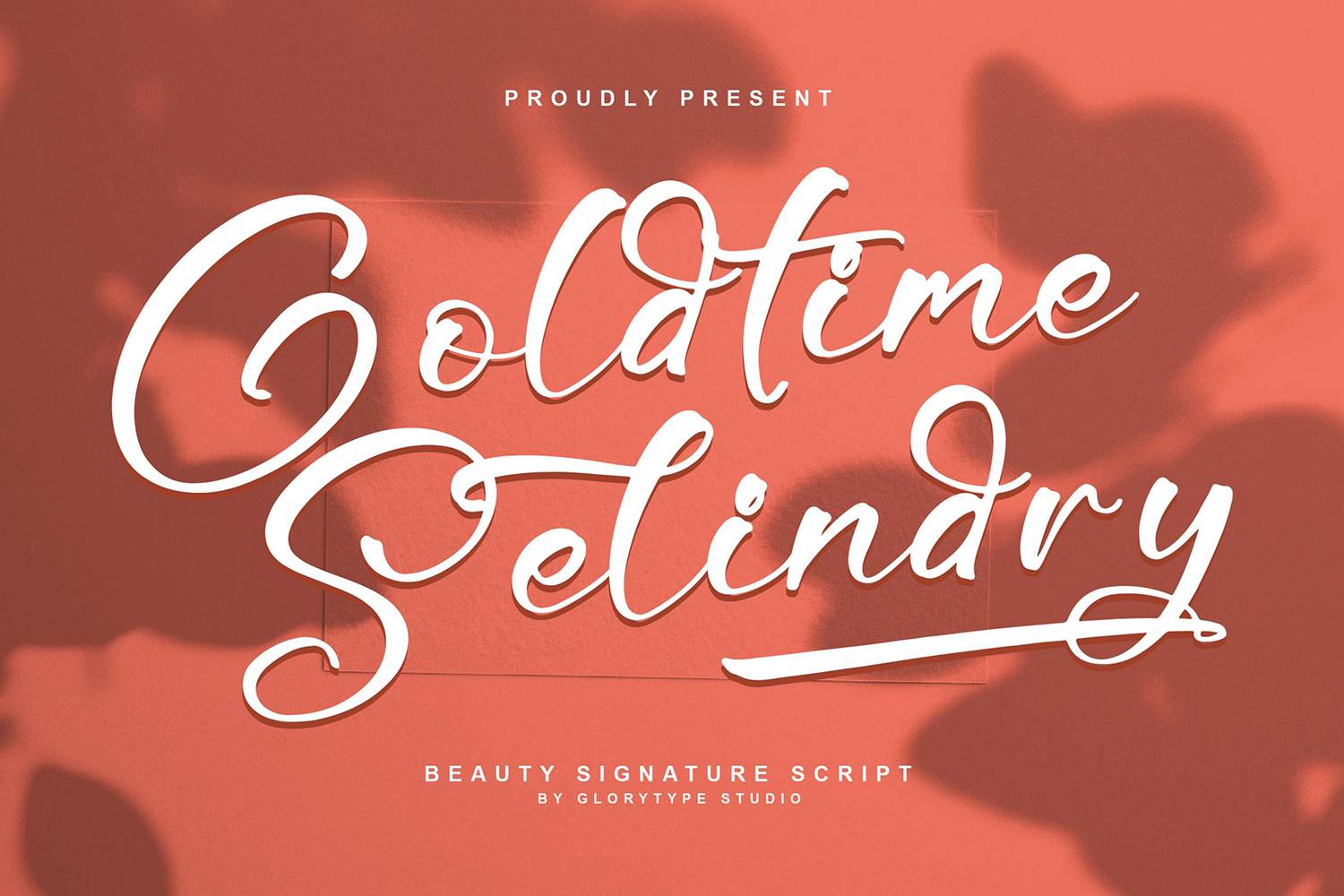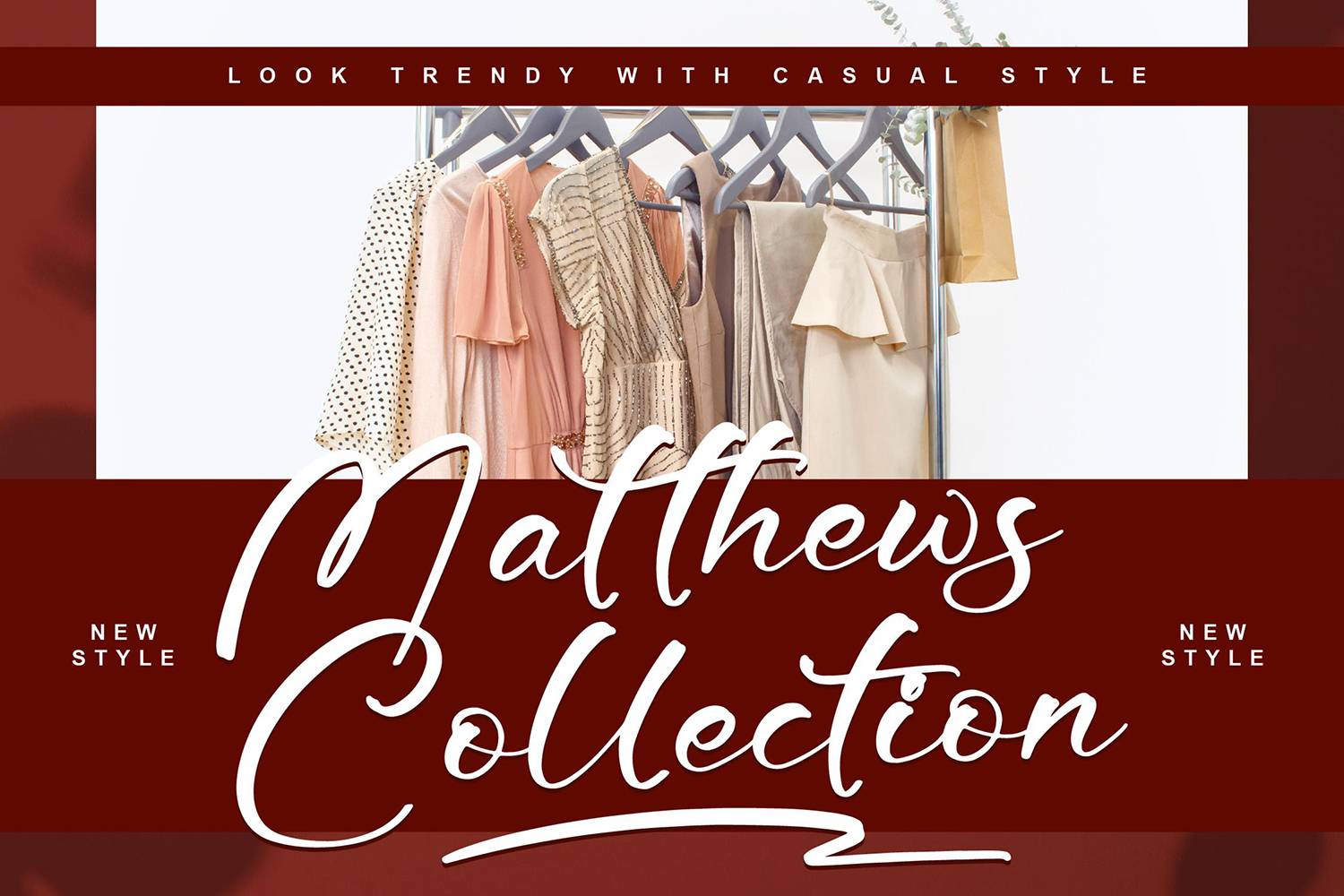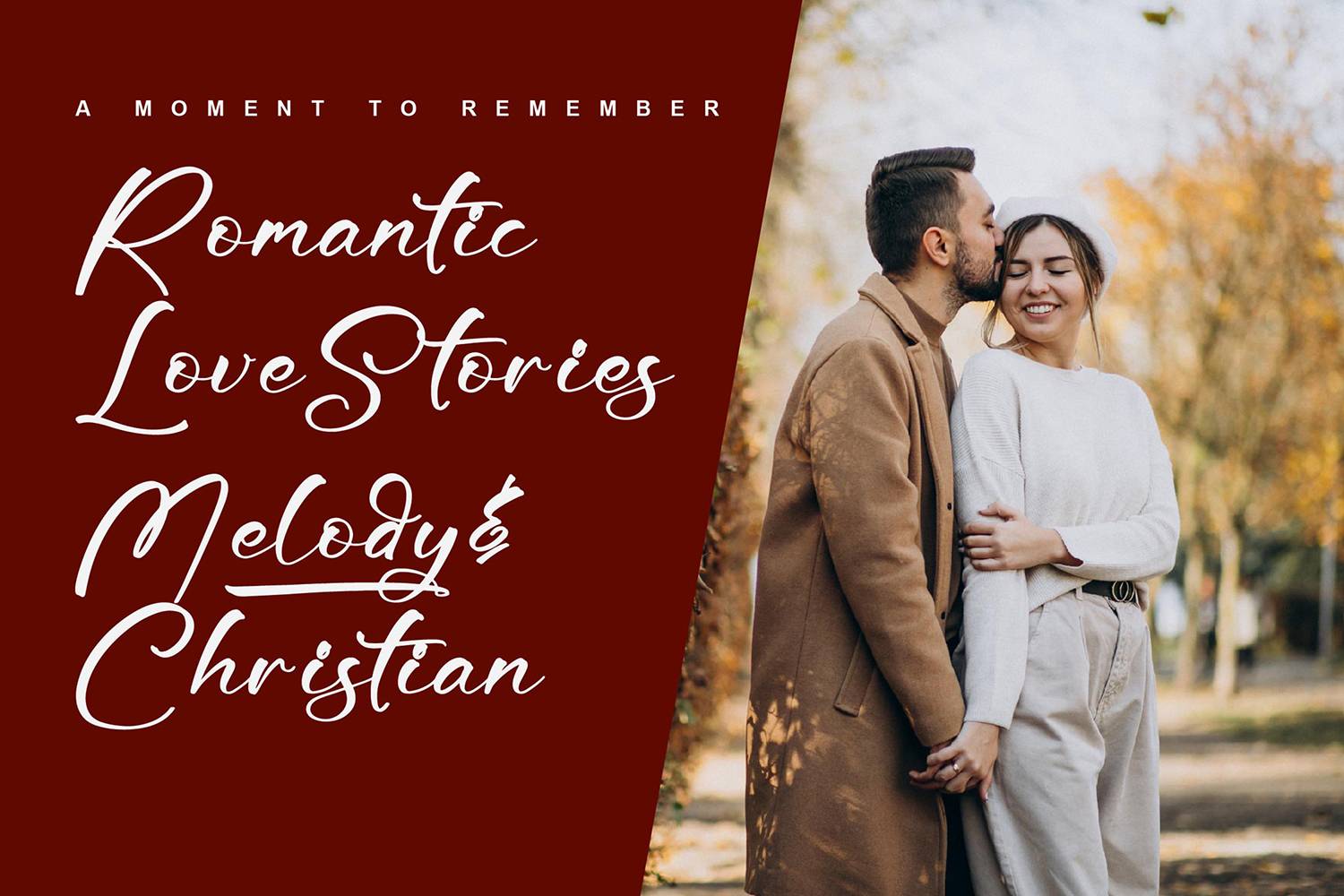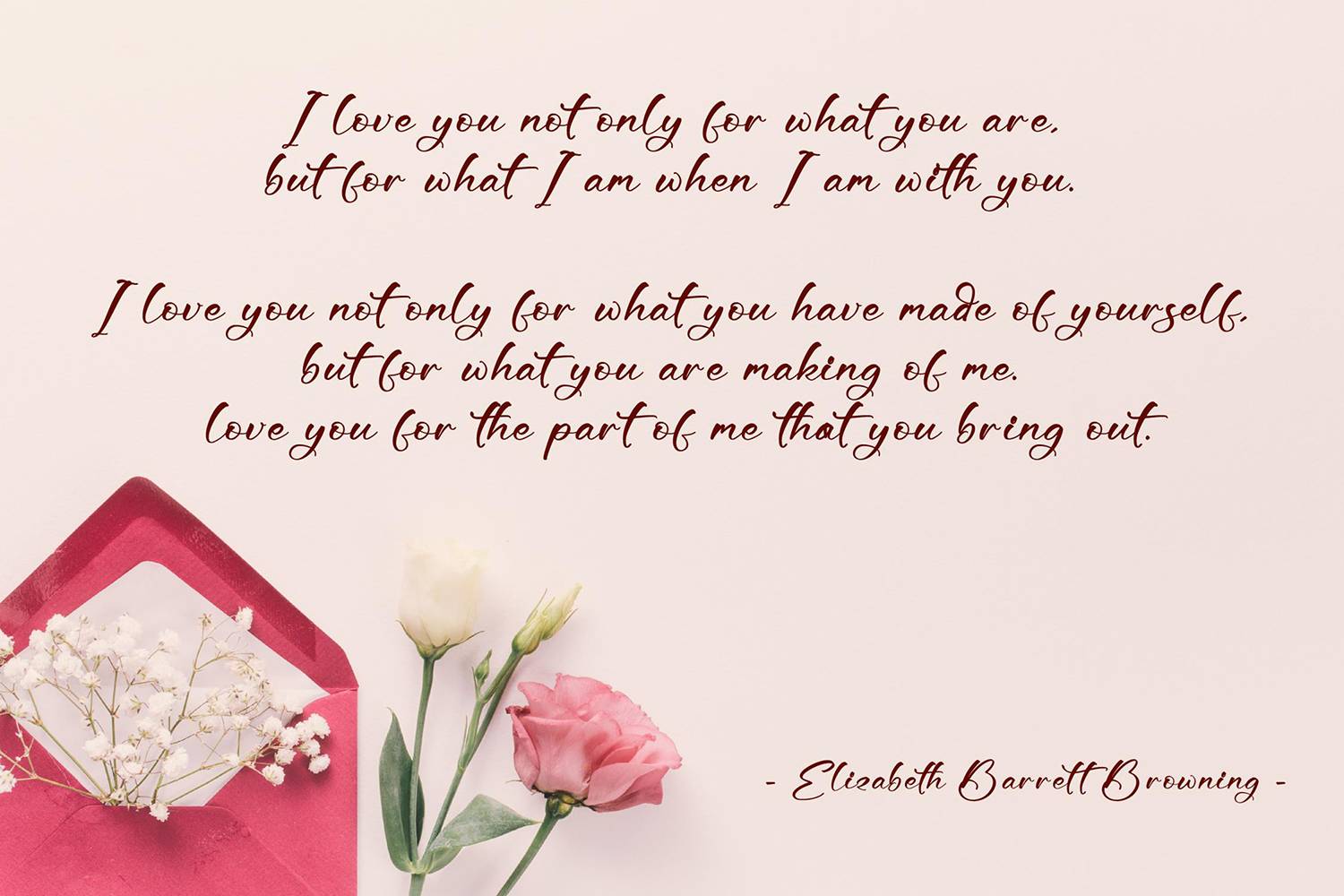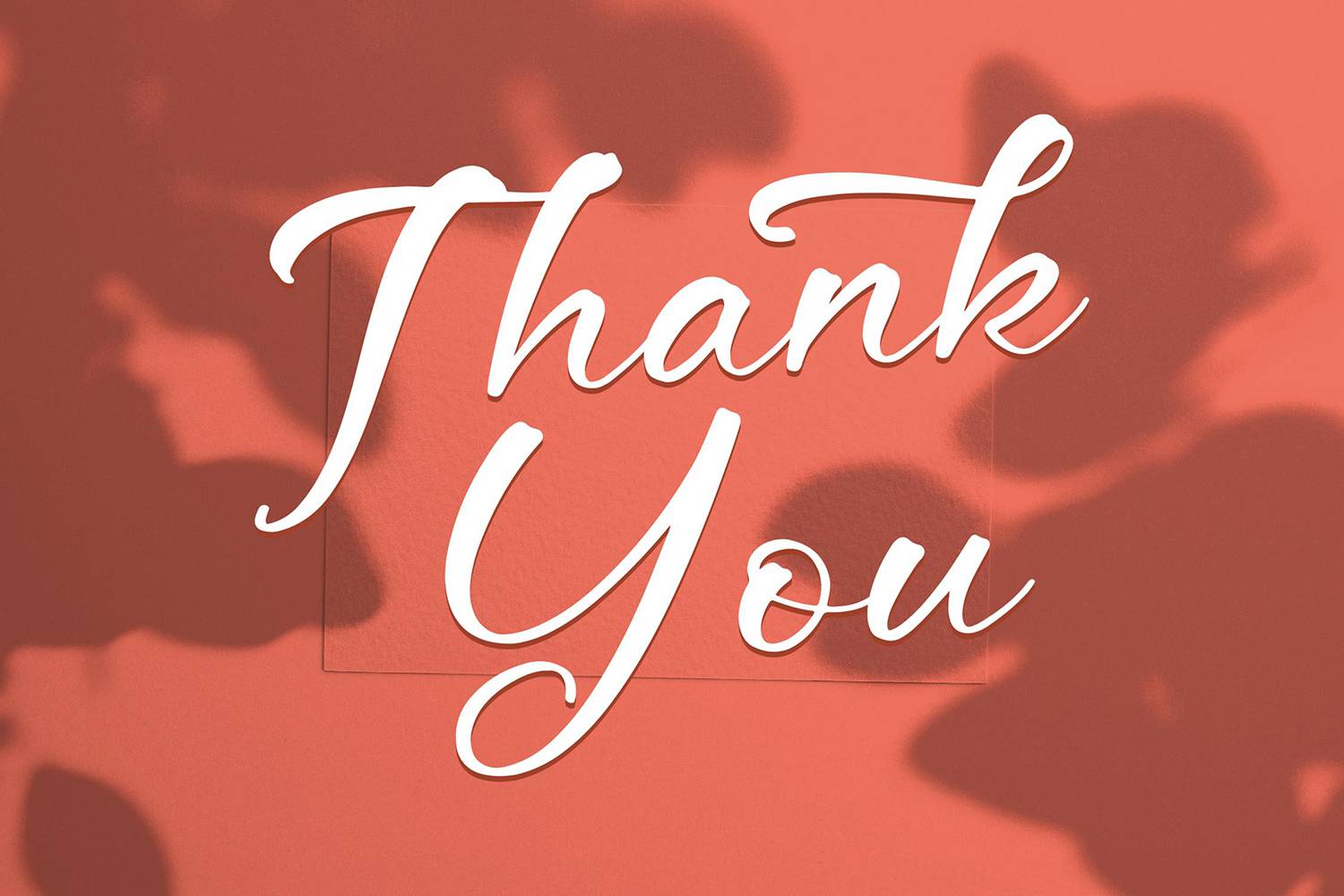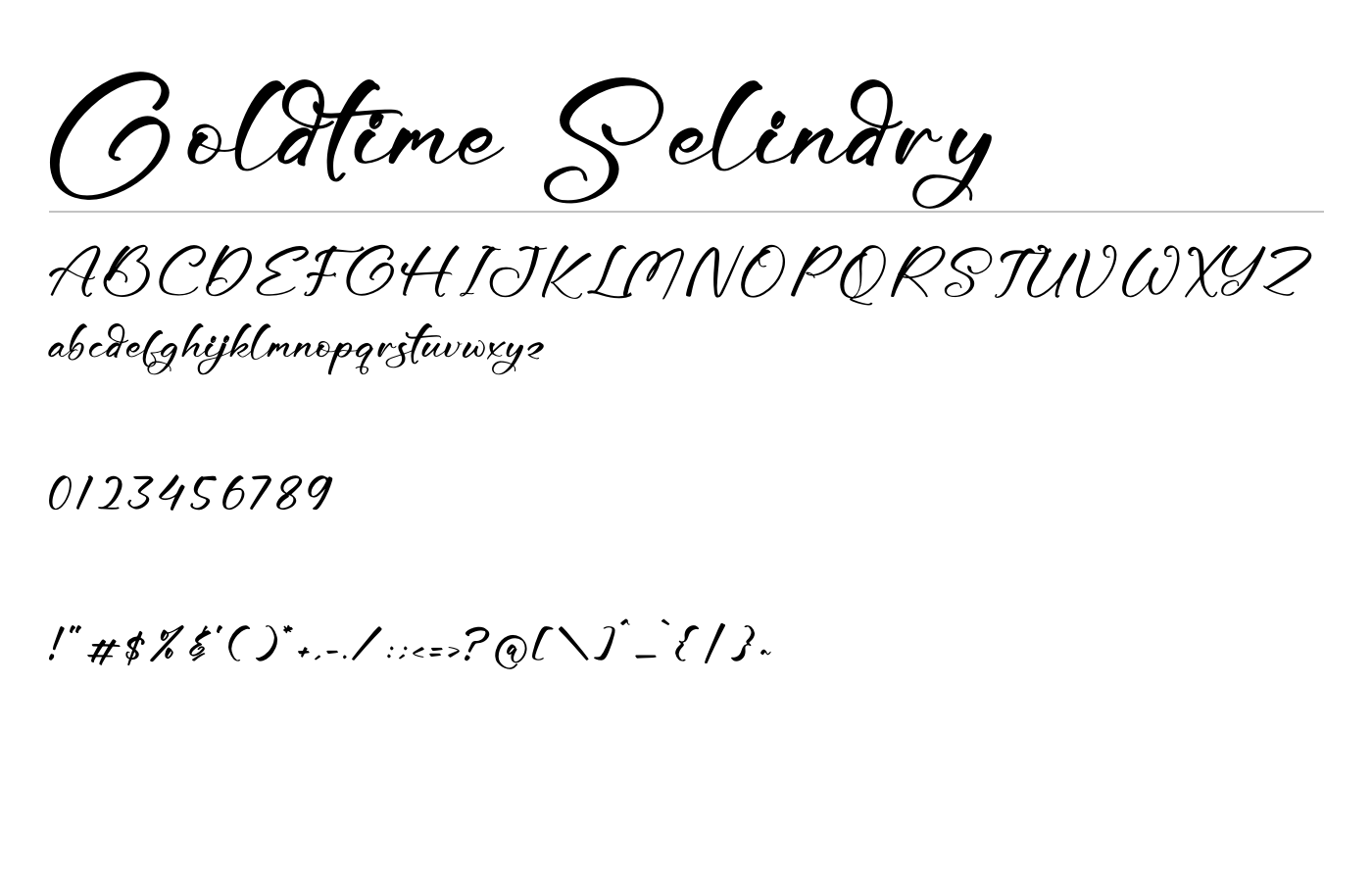
Goldtime Selindry is an elegant script font featuring smooth, flowing strokes with moderate contrast, exuding a hand-drawn calligraphic style that feels both refined and approachable. Its graceful letterforms, including beautifully looped capitals and a mix of single and double-story characters, make it ideal for sophisticated branding, invitations, and stylish headlines where a touch of personality and class is desired. This font shines in projects that need an artistic yet readable script to convey charm and creativity.
Goldtime Selindry Font
About Goldtime Selindry Font